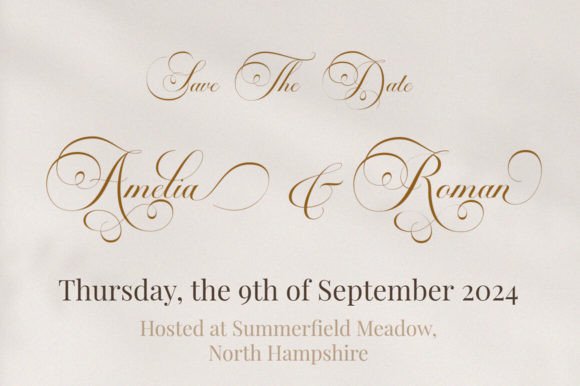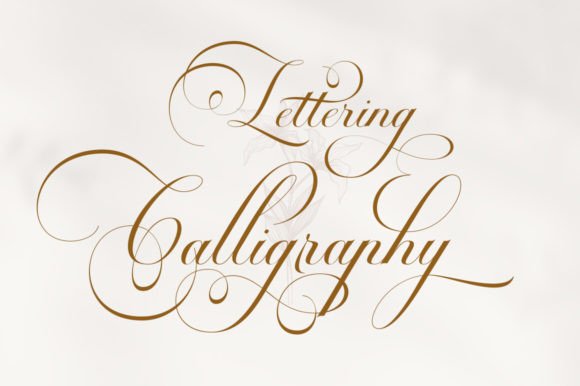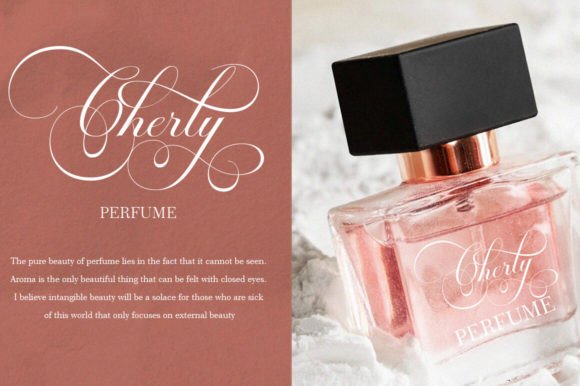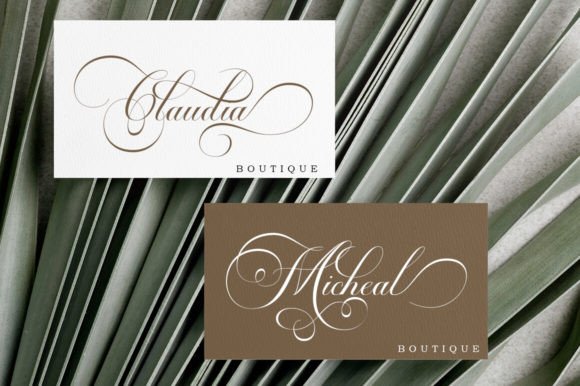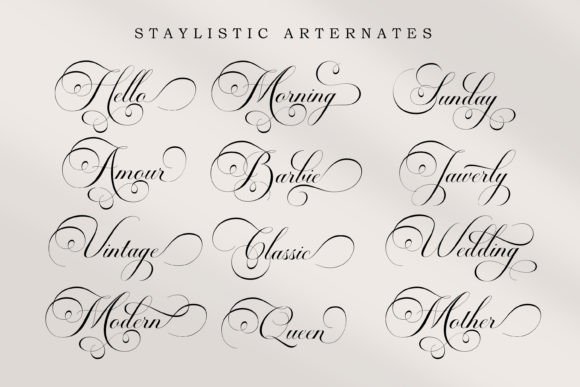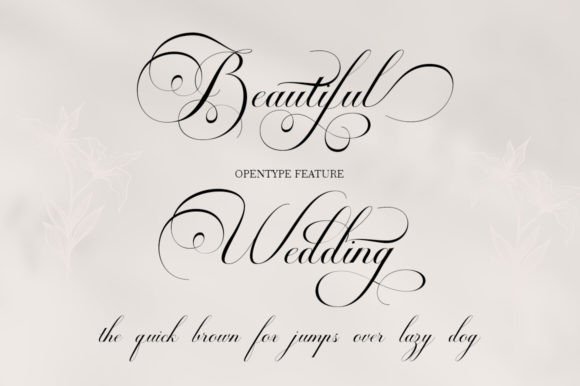
Introducing Blissful Font: Elevate Your Designs with Elegance and Sophistication
Are you a designer or crafter looking for a font that exudes elegance, sophistication, and glamour? Look no further than Blissful Classic, a stunning calligraphy font that is sure to take your designs to the next level. With its exquisite changing characters, classic decorative copper script, and modern touch, Blissful Classic is the perfect choice for a wide range of design applications.
What Makes Blissful Classic So Special?
Blissful Classic is a beautifully crafted calligraphy font that boasts a smooth, clean, and feminine design. Its sensual and glamorous style is perfect for designers who want to add a touch of luxury to their work. The font’s classic style is highly detailed, making it easy to read and perfect for use in formal designs such as invitations, labels, restaurant menus, logos, fashion, makeup, stationery, novels, magazines, books, greeting/wedding cards, packaging, labels, or any kind of advertising purpose.
Key Features of Blissful Classic
- Exquisite Changing Characters: Blissful Classic comes with a range of changing characters that add a touch of elegance and sophistication to your designs.
- Classic Decorative Copper Script: The font’s classic decorative copper script style is perfect for designers who want to add a touch of luxury to their work.
- Modern Touch: The font’s modern touch makes it perfect for use in a wide range of design applications, from traditional to modern designs.
- Smooth and Clean Design: The font’s smooth and clean design makes it easy to read and perfect for use in formal designs.
- Feminine and Sensual Style: The font’s feminine and sensual style is perfect for designers who want to add a touch of glamour to their work.
Design Applications for Blissful Classic
Blissful Classic is perfect for a wide range of design applications, including:
- Invitations: Use Blissful Classic to create beautiful and elegant invitations for weddings, parties, and other special occasions.
- Labels: Add a touch of luxury to your labels with Blissful Classic, perfect for use in packaging, branding, and marketing materials.
- Restaurant Menus: Use Blissful Classic to create elegant and sophisticated restaurant menus that will leave a lasting impression on your customers.
- Logos: Blissful Classic is perfect for use in logos, adding a touch of elegance and sophistication to your brand identity.
- Fashion and Makeup: Use Blissful Classic to create stunning fashion and makeup designs that exude glamour and sophistication.
- Stationery: Add a touch of luxury to your stationery with Blissful Classic, perfect for use in letterheads, business cards, and other office materials.
- Novels and Magazines: Use Blissful Classic to create beautiful and elegant book covers, perfect for use in novels, magazines, and other publications.
- Greeting and Wedding Cards: Blissful Classic is perfect for use in greeting and wedding cards, adding a touch of elegance and sophistication to your designs.
- Packaging: Use Blissful Classic to create stunning packaging designs that will leave a lasting impression on your customers.
- Advertising: Blissful Classic is perfect for use in advertising materials, adding a touch of luxury and sophistication to your campaigns.
| Font Name | Blissful Font |
| Author | Romie Creative |
In conclusion, Blissful Classic is a stunning calligraphy font that is perfect for designers and crafters who want to add a touch of elegance and sophistication to their work. With its exquisite changing characters, classic decorative copper script, and modern touch, Blissful Classic is the perfect choice for a wide range of design applications. Its smooth and clean design, feminine and sensual style, and Unicode PUA encoding make it easy to use and perfect for use in formal designs. So why wait? Download Blissful Classic today and take your designs to the next level!